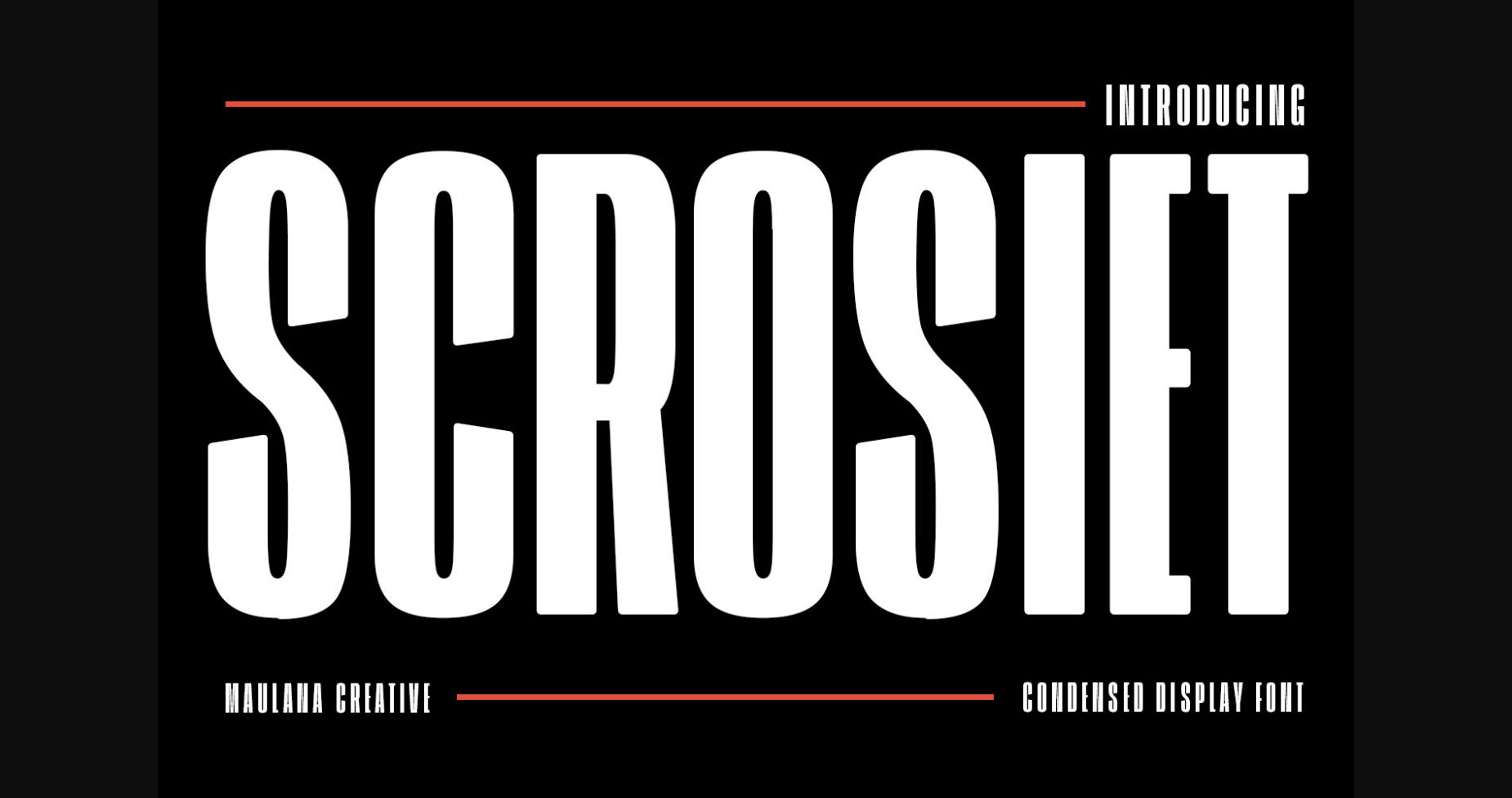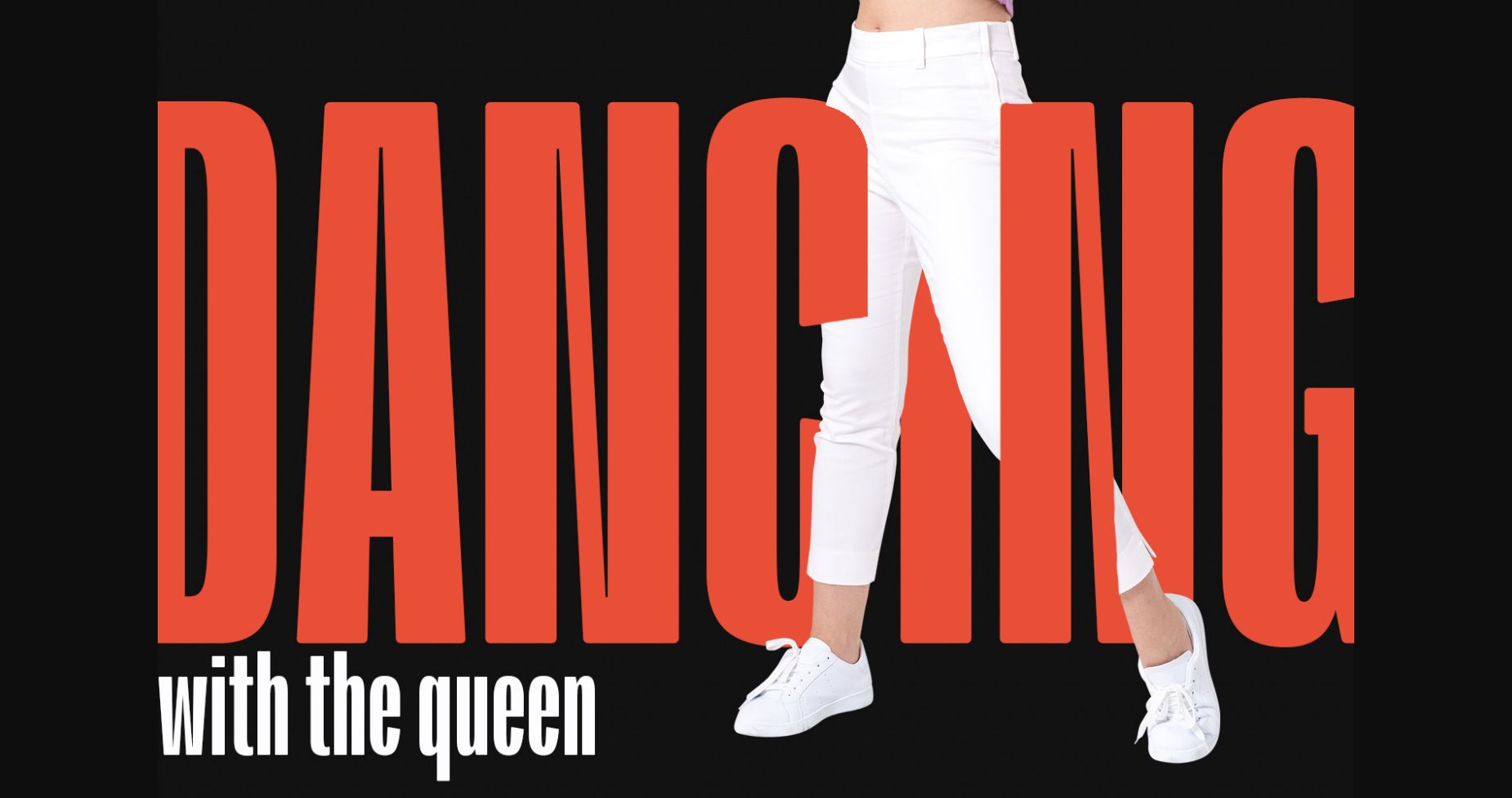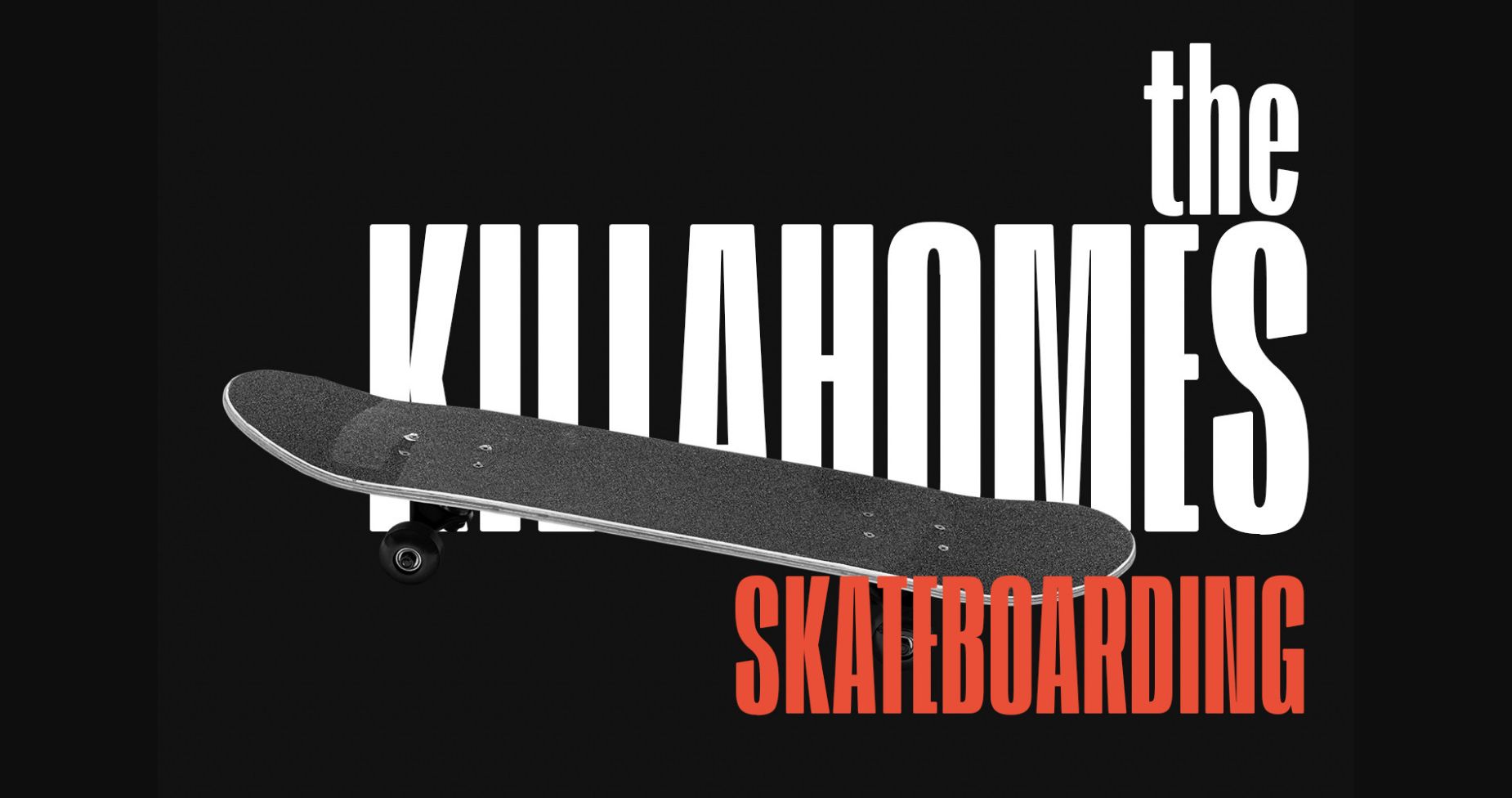
About Scrosiet Font
Scrosiet is a modern, condensed, all-caps sans serif font with bold low contrast strokes, fun character with a bit of ligature, and alternates to give you extra creative work. Scrosiet is good for logo design, social media, movie titles, book titles, short text, and even long text, and good for your secondary text combined with a sans or serif. Make stunning work with Scorsiet font!